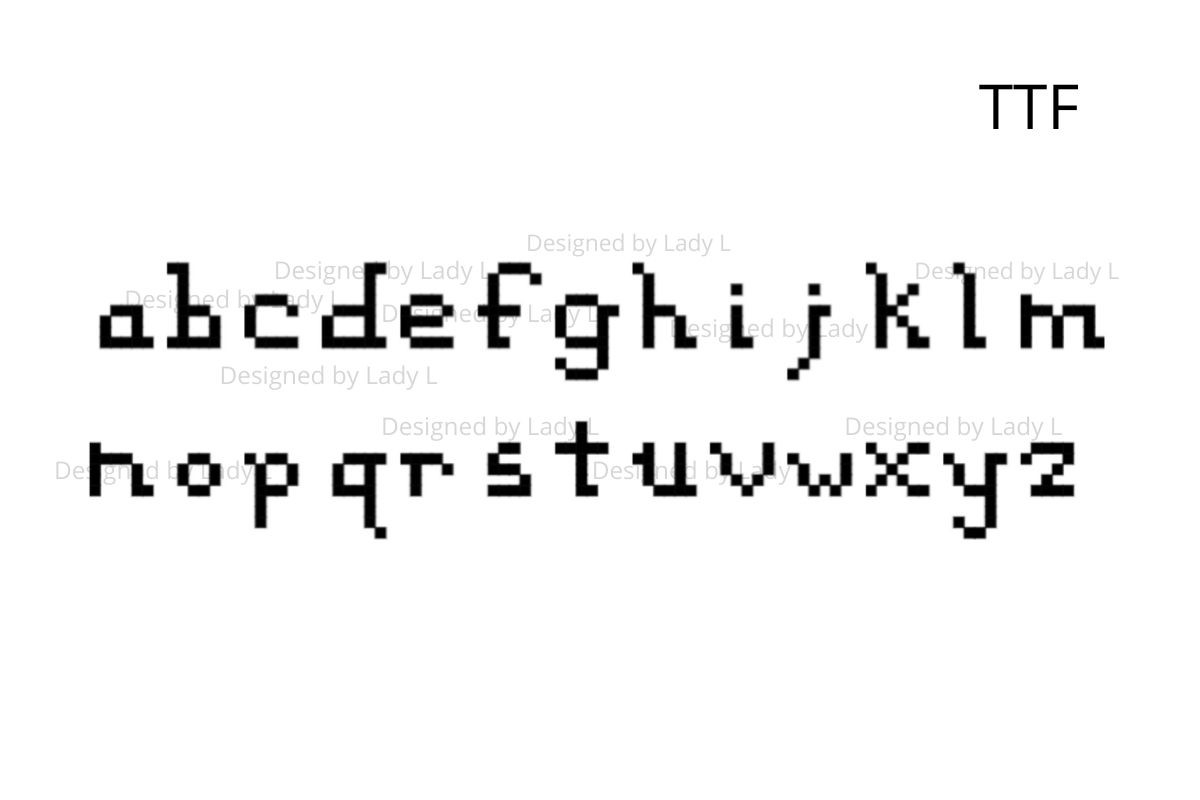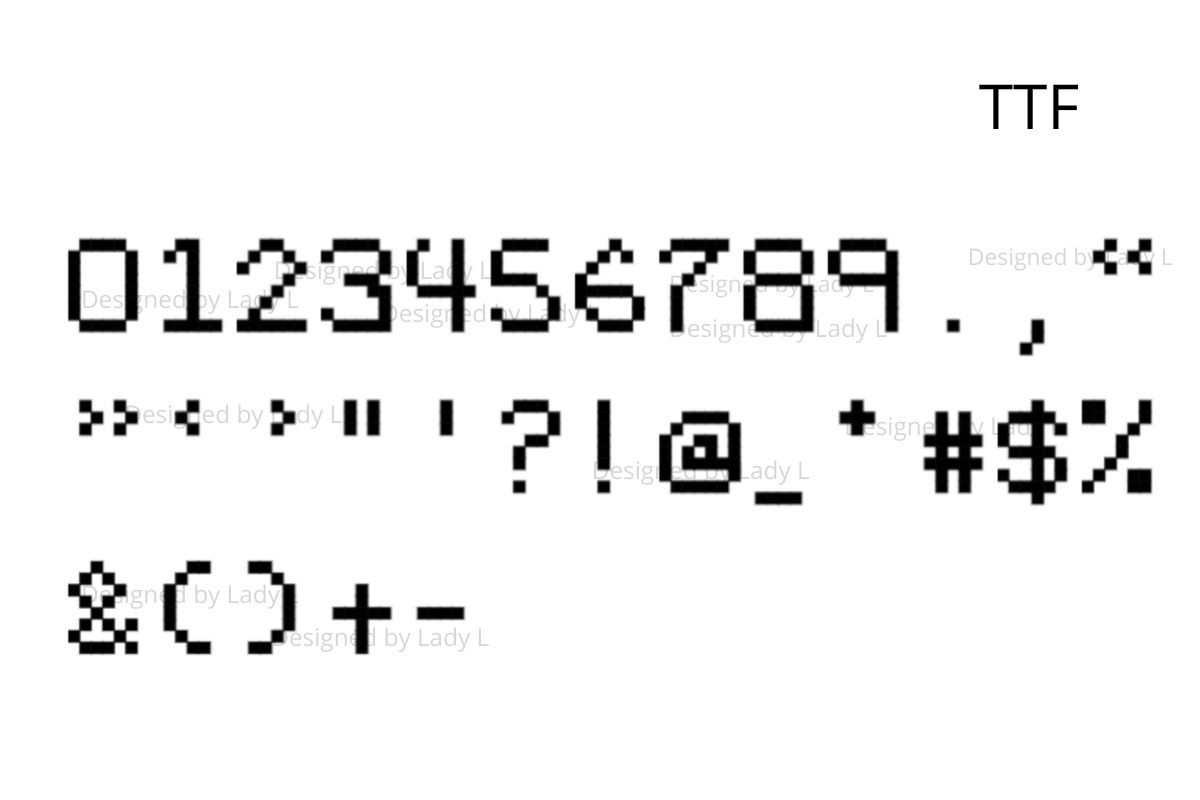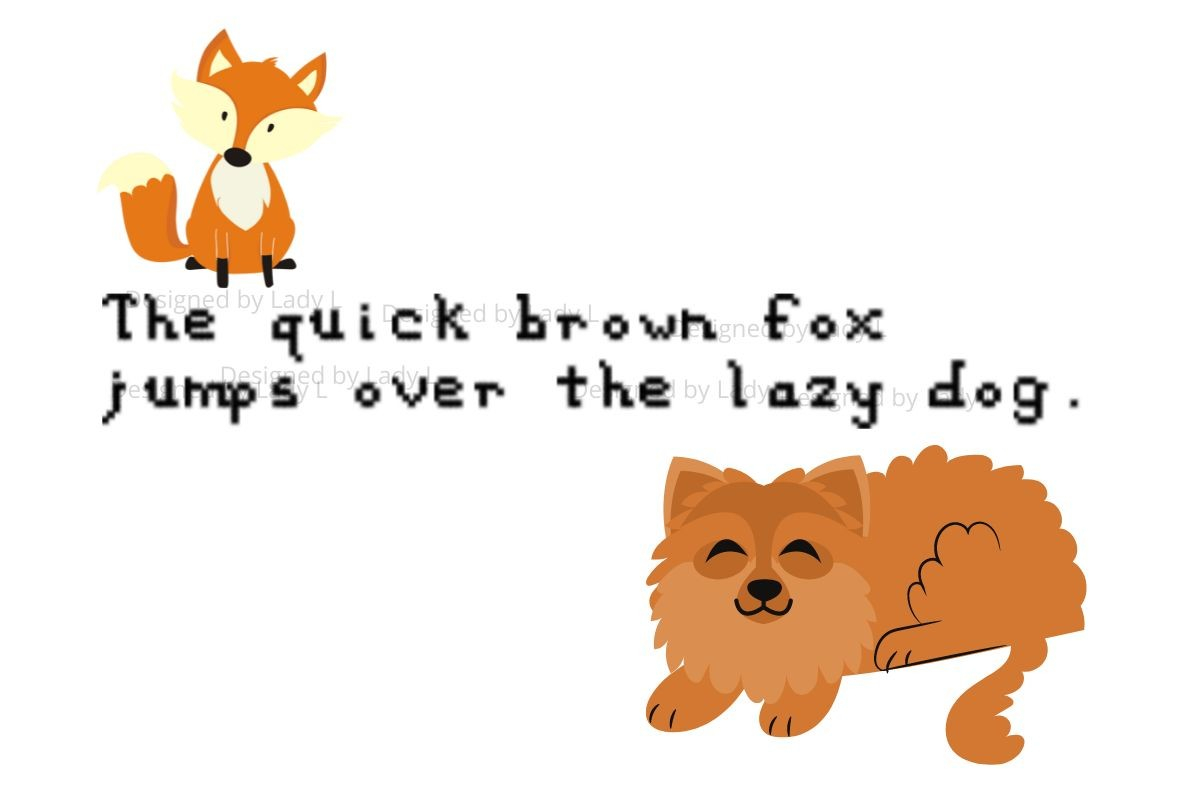
Gamer Bit Font
About Gamer Bit Font
Gamer Bit is a fun, 8-bit display font that will give your designs a ton of video game nostalgia! Perfect for projects and merchandise focused on vintage gaming vibes. Upper case, lower case, and some special characters are included. Gamers are sure to vibe with this particular font.